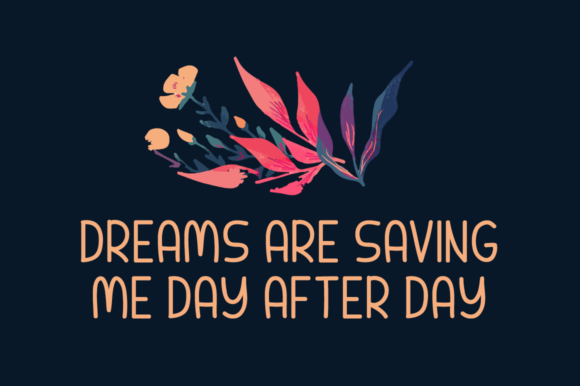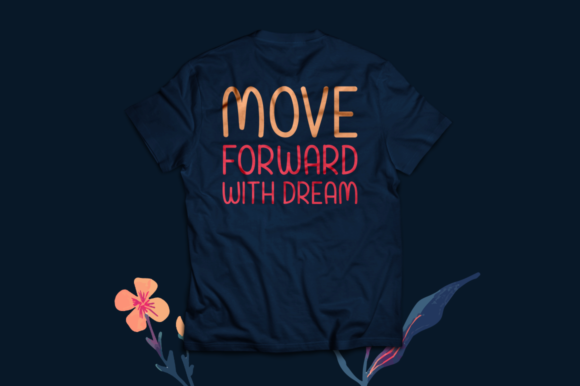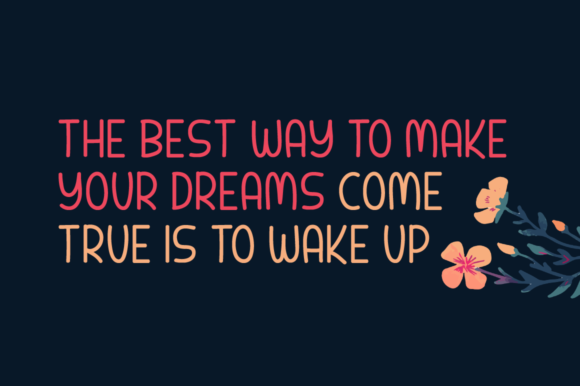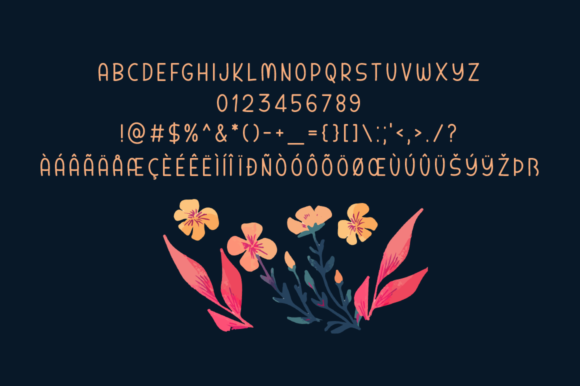
Crimson Dream Font: The Perfect Addition to Your Design Arsenal
Are you a designer or crafter looking for a font that can add a personal touch to your creations? Look no further than the Crimson Dream Font. This adorable and simple lettered handwritten font is perfect for all your chalkboard quotes, teaching materials, and more. With its authentic look, Crimson Dream Font can instantly elevate your designs and give them a realistic feel.
What is Crimson Dream Font?
Crimson Dream Font is a carefully crafted handwritten font that mimics the look of chalkboard writing. Its unique and charming style makes it perfect for a wide range of design projects, from educational materials to social media graphics. The font’s simplicity and elegance ensure that it can be used in various contexts, from formal to informal.
Key Features of Crimson Dream Font
- Cute and Simple Design: The font’s adorable design makes it perfect for designs that require a personal touch.
- Lettered Handwritten Style: The font’s handwritten style gives it an authentic look that is sure to impress.
- Chalkboard Quotes: The font is ideal for creating chalkboard quotes that look like they were written on a real chalkboard.
- Teaching Materials: The font’s clarity and simplicity make it perfect for teaching materials, such as worksheets, presentations, and more.
- Easy to Read: The font is designed to be easy to read, making it perfect for designs that require a clear and concise message.
Benefits of Using Crimson Dream Font
Using Crimson Dream Font in your designs can have numerous benefits. Here are a few:
- Personal Touch: The font’s authentic look gives designs a personal touch that is sure to engage your audience.
- Realistic Feel: The font’s chalkboard-inspired design gives designs a realistic feel that is perfect for creating a sense of nostalgia or authenticity.
- Versatility: The font’s simplicity and elegance make it versatile enough to be used in various design projects.
- Time-Saving: The font’s clear and concise design makes it easy to read, saving you time and effort in creating designs that communicate your message effectively.
Who Can Use Crimson Dream Font?
Crimson Dream Font is perfect for a wide range of designers and crafters, including:
- Graphic Designers: Graphic designers can use the font to create stunning designs for clients, from social media graphics to brochures.
- Crafters: Crafters can use the font to create personalized gifts, such as signs, banners, and more.
- Teachers: Teachers can use the font to create engaging teaching materials, such as worksheets, presentations, and more.
- Small Business Owners: Small business owners can use the font to create eye-catching marketing materials, such as flyers, posters, and more.
How to Use Crimson Dream Font?
Using Crimson Dream Font is easy. Here are a few tips:
- Pair it with Other Fonts: Pair Crimson Dream Font with other fonts to create a unique and visually appealing design.
- Experiment with Colors: Experiment with different colors to find the perfect combination that matches your brand or design.
- Use it for Headings: Use Crimson Dream Font for headings to add a personal touch to your designs.
- Use it for Body Text: Use Crimson Dream Font for body text to create a clear and concise message.
Crimson Dream Font is a versatile and charming font that can add a personal touch to your designs. Its authentic look and simplicity make it perfect for a wide range of design projects, from educational materials to social media graphics. Whether you’re a designer, crafter, teacher, or small business owner, Crimson Dream Font is a great addition to your design arsenal.